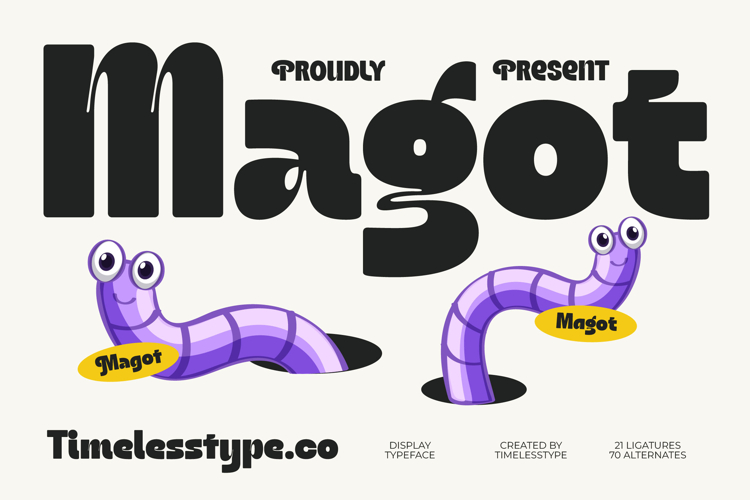
Magot - Groovy Display Typeface
Inject instant personality and nostalgic charm into your branding projects. Magot - Groovy Display Typeface is a captivating font that effortlessly blends 1970s psychedelic aesthetics with contemporary typographic precision. Its bold weight and exaggerated, fluid curves command immediate attention, making it the perfect choice for impactful headlines and memorable logotypes. This typeface is engineered to stand out, offering a foundation of distinctive style that cannot be ignored in a crowded visual landscape.